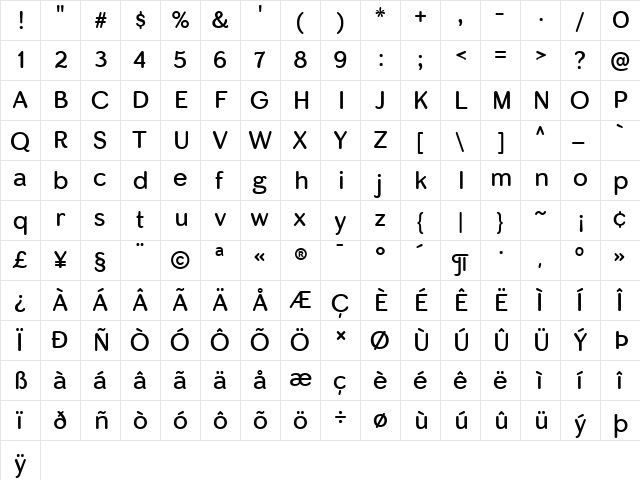
Skirt Regular
Design Context for Skirt Typeface
Skirt is a composed and adaptable typeface that performs quietly and consistently across a wide range of design contexts.
Pro Tip: Use Skirt in both headline and body roles to test its range before committing to a single application.